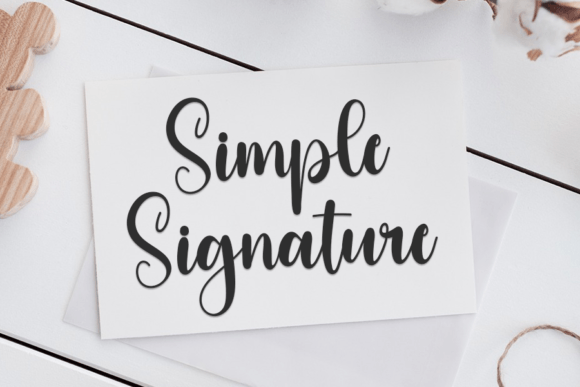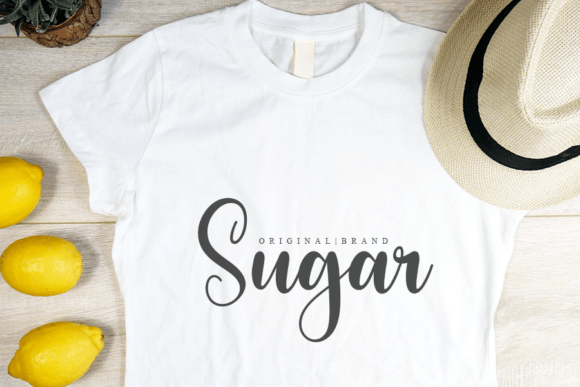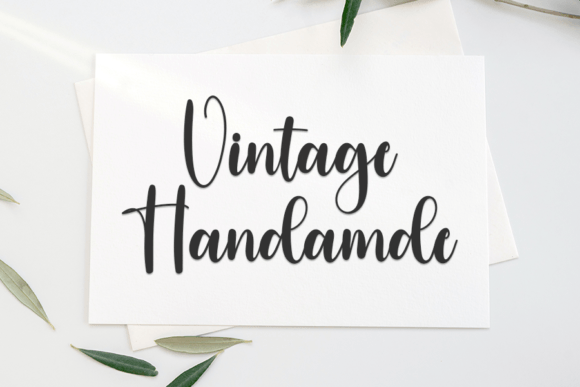
Scary House Font: Free Download Now
Introduction to Scary House Font
Scary House is a handwritten font carefully crafted for a cool and unique design.
👤 Author ade studio
This font can be used to write letters, invitations, food products, titles, and more .
Why Choose Scary House Font?